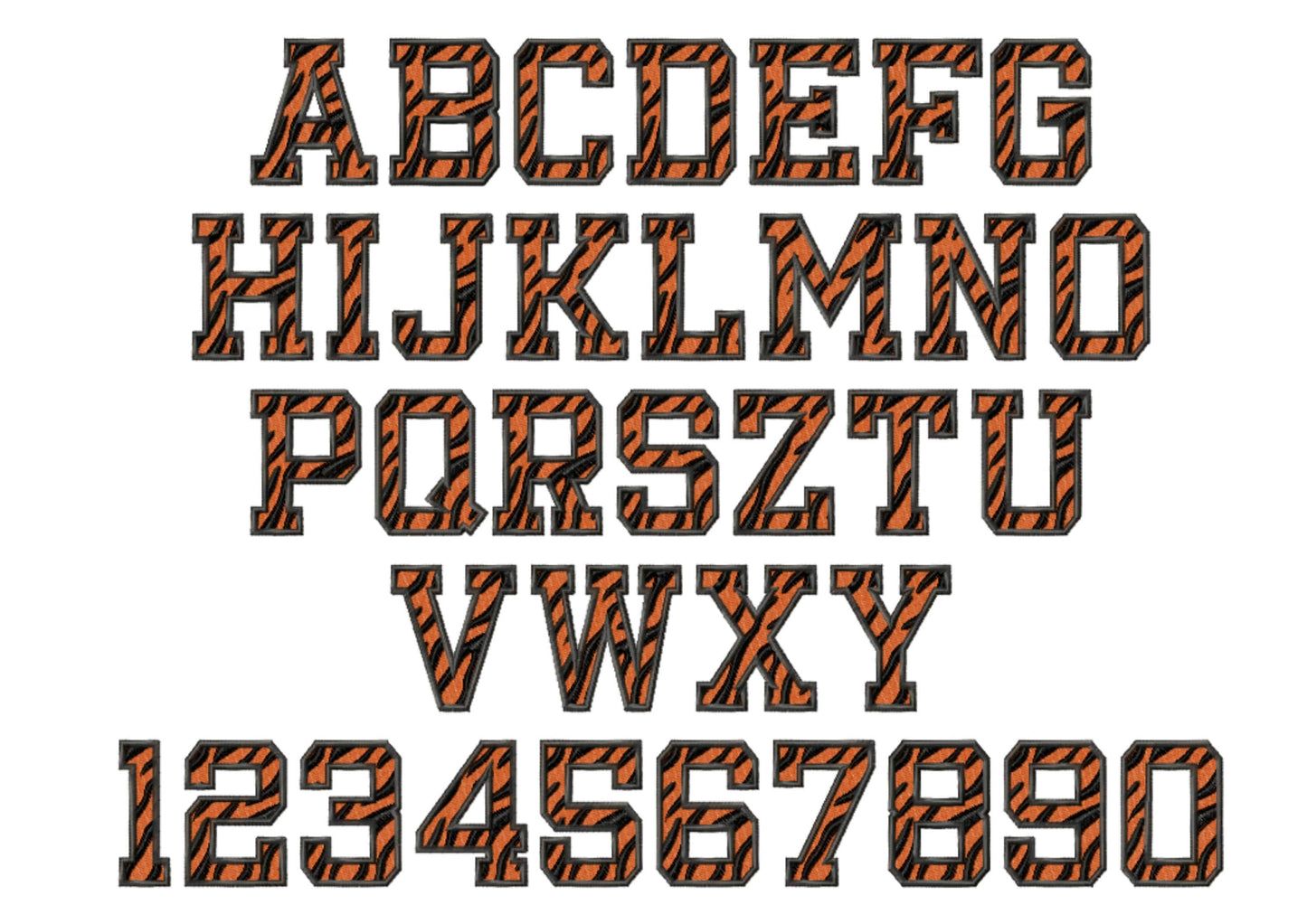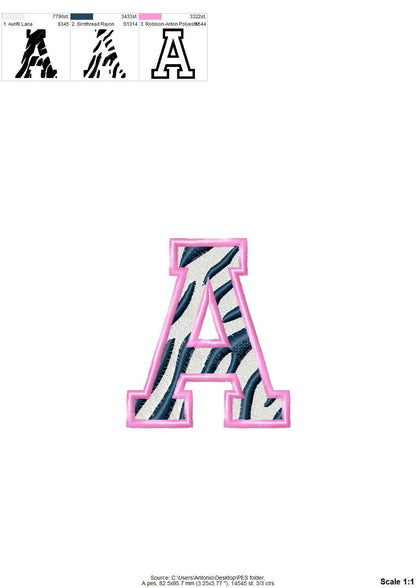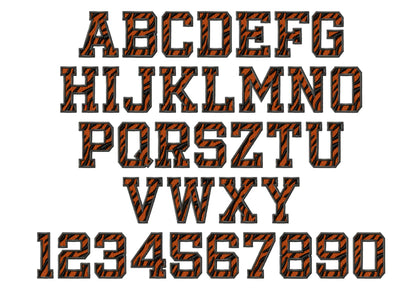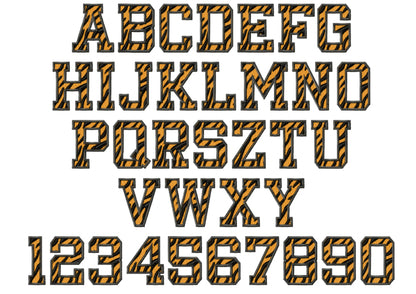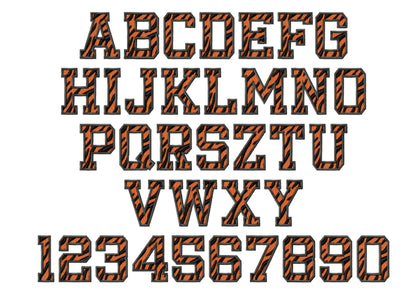
Tiger Print Varsity Sport Font Fill Stitch
Included: Uppercase A-Z, Numbers 0-9, Punctuation
A varsity sport font with a tiger stripe print, in fill stitch. Great for team mascots, school shirts, jerseys and bags.
Uppercase letters A to Z, numbers 0 to 9 and a slash. Six sizes: 2, 2.5, 3, 3.5, 3.8 and 4.2 inches. Three colors: main color, tiger stripes and outline.
• Tiger print varsity font, fill stitch
• Uppercase A to Z, numbers 0 to 9, slash
• 6 sizes, 2 to 4.2 in